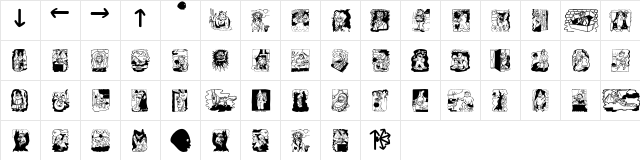
NiceNeighbours02 Regular
Design Context for NiceNeighbours02 Typeface
NiceNeighbours02 is a composed and adaptable typeface that performs quietly and consistently across a wide range of design contexts.